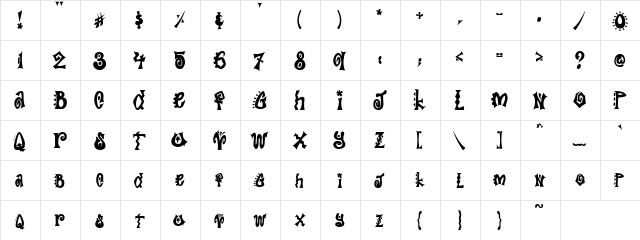
PC Funky Black Regular Font Preview
PC Funky Black Regular
Design Context for PC Funky Black Typeface
PC Funky Black trades formality for fun, with bouncy, characterful letterforms that bring warmth and energy to any project.
Font Pairing: Pairs well with a rounded or humanist sans for body copy, maintaining the friendly tone without relying on PC Funky Black to carry extended reading.
Pro Tip: Avoid using PC Funky Black for long passages of text — it works best for headlines, labels, and short calls to action.